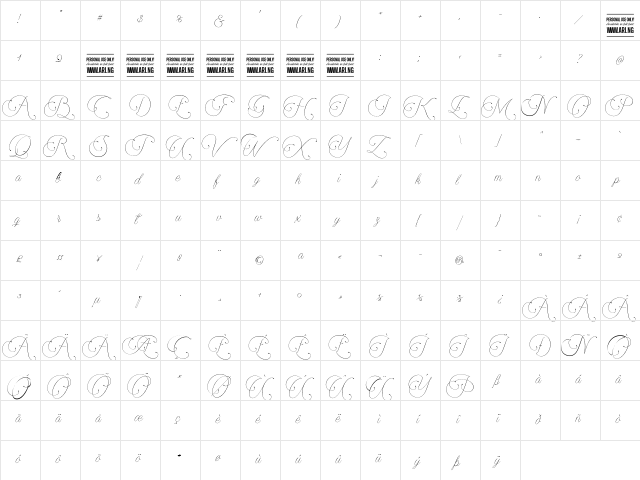
Encina Script 1 PERSONAL USE Regular
| Foundry | M害 Greb䣫 |
| Designer | M害 Greb䣫 |
Design Context for Encina Script 1 PERSONAL USE Typeface
Encina Script 1 PERSONAL USE brings a calligraphic fluidity to the page — its connecting strokes and expressive curves give it an unmistakably human quality.
Font Pairing: Combine Encina Script 1 PERSONAL USE with a simple geometric sans for maximum contrast — the tension between flowing curves and clean structure is a classic typographic pairing.
Pro Tip: Pair Encina Script 1 PERSONAL USE with a clean sans-serif for supporting text. The contrast between fluid script and geometric structure creates an elegant typographic hierarchy.